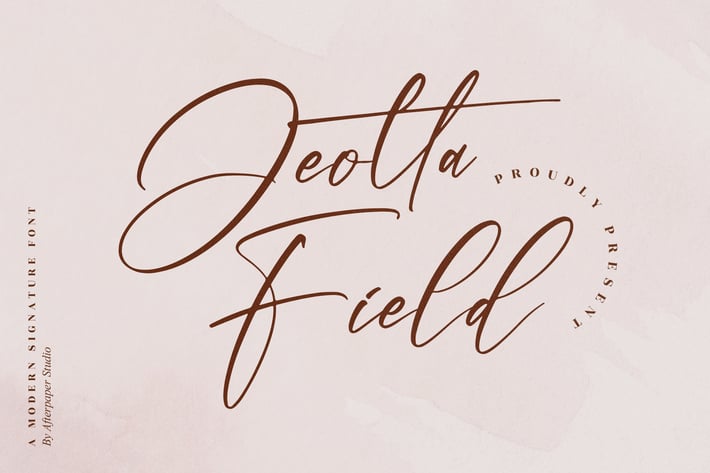
Jeotta Field Modern Signature Font
Jeotta Field Modern Signature Font is a graceful and stylish typeface crafted with a natural handwritten flow. Its refined strokes and elegant curves make it a versatile choice for projects that demand a luxurious and personal touch, blending modern sophistication with timeless handwriting charm.
+ Modern handwritten signature style
+ Smooth strokes with natural flow
+ Includes stylistic alternates & ligatures
+ Personal branding & signature logos
+ Wedding invitations & stationery
+ Fashion, beauty & lifestyle projects
+ Social media & blog headers
+ Elegant posters & promotional designs
Create a lasting impression with Jeotta Field – a modern signature font that speaks elegance and individuality in every stroke.